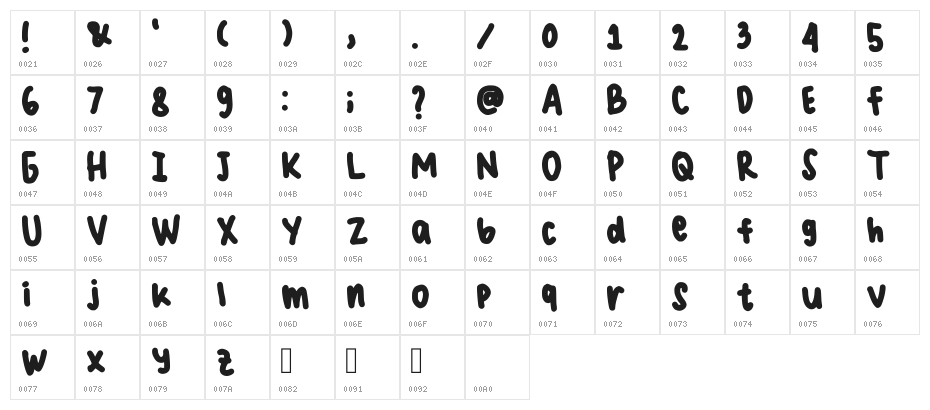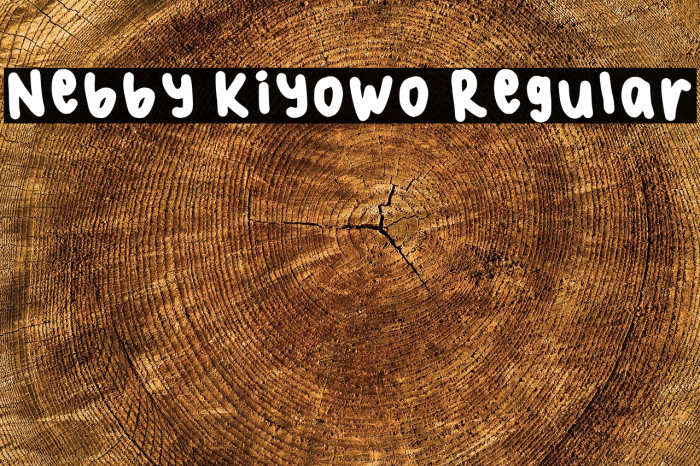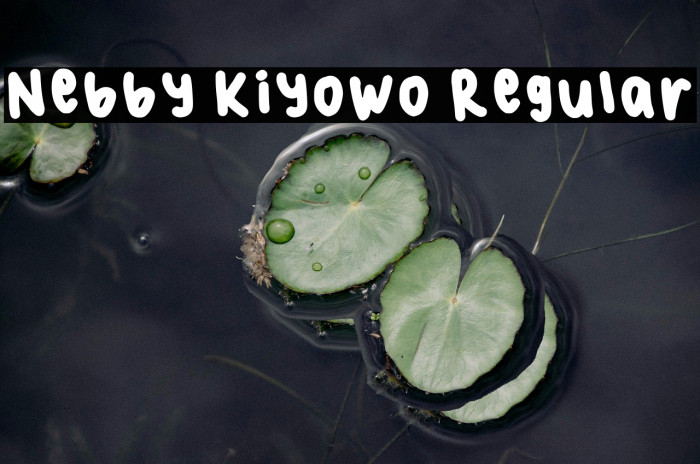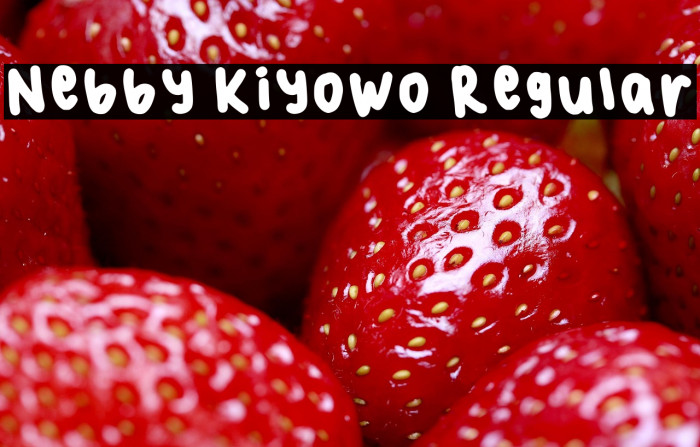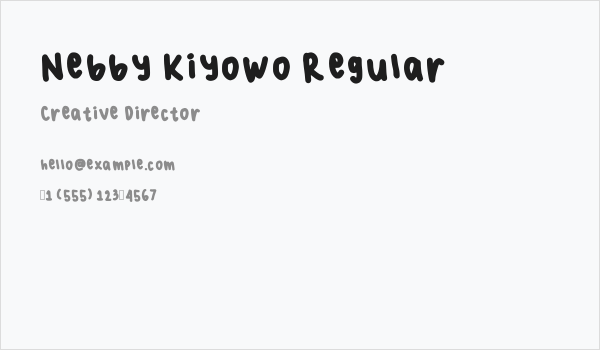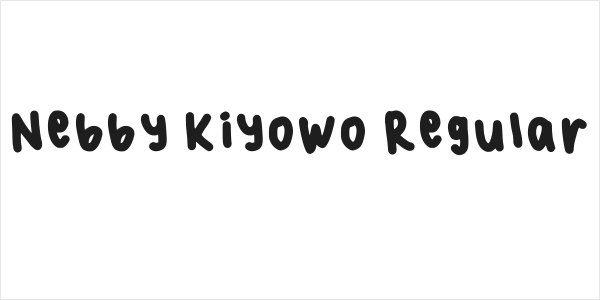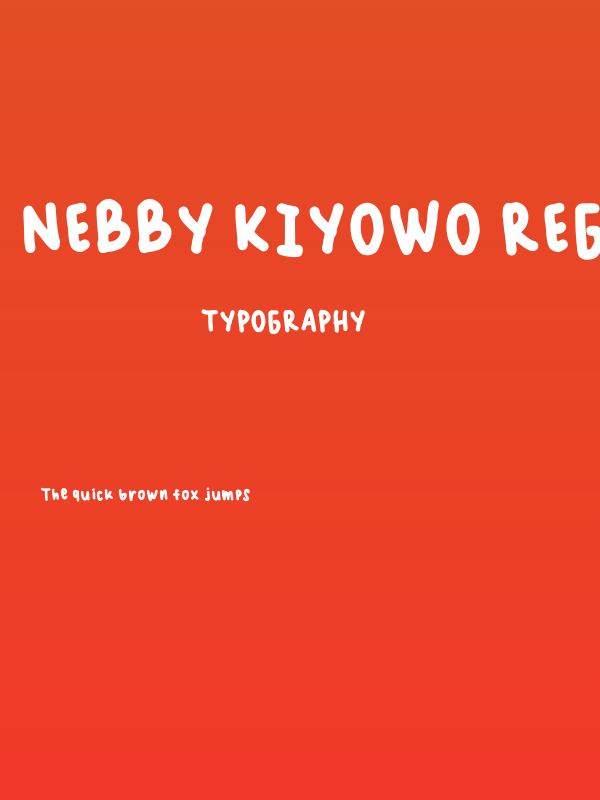
Nebby Kiyowo Regular Font
Nebby Kiyowo Regular Description
This playful and bold font features rounded, hand-drawn characters that convey a sense of fun and creativity. The letters have a consistent thickness, giving them a uniform appearance while maintaining a casual and informal style. The font's design is approachable and friendly, making it ideal for projects that require a personal touch. Its boldness ensures readability, even at smaller sizes, while the rounded edges add a soft, inviting feel. The numbers and special characters are designed with the same playful aesthetic, ensuring consistency across all text elements.
| Proposed Projects | Ideal for children's books, playful branding, greeting cards, and informal invitations. |